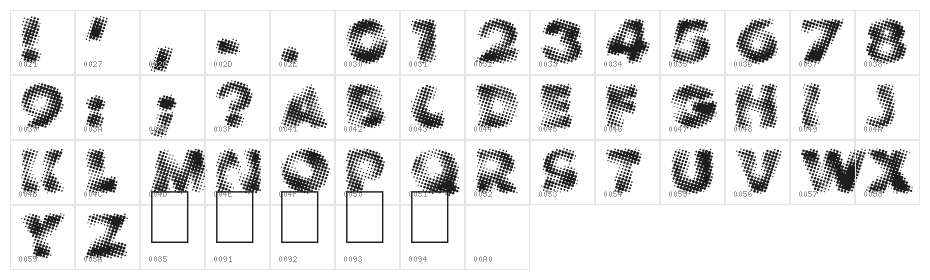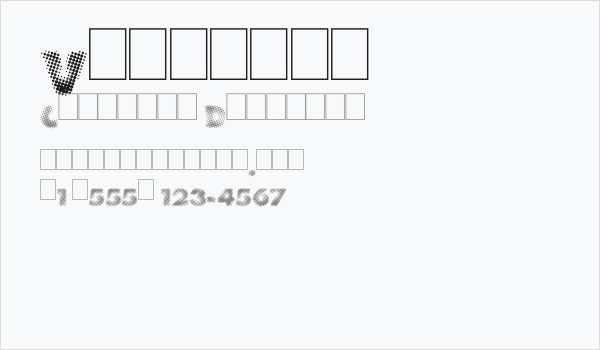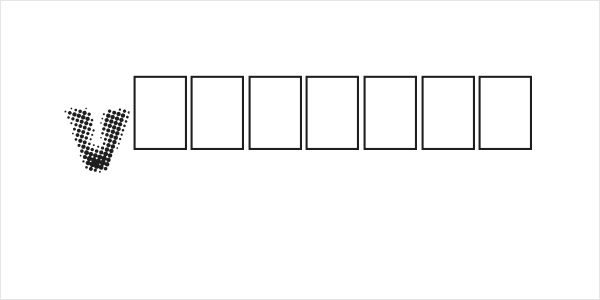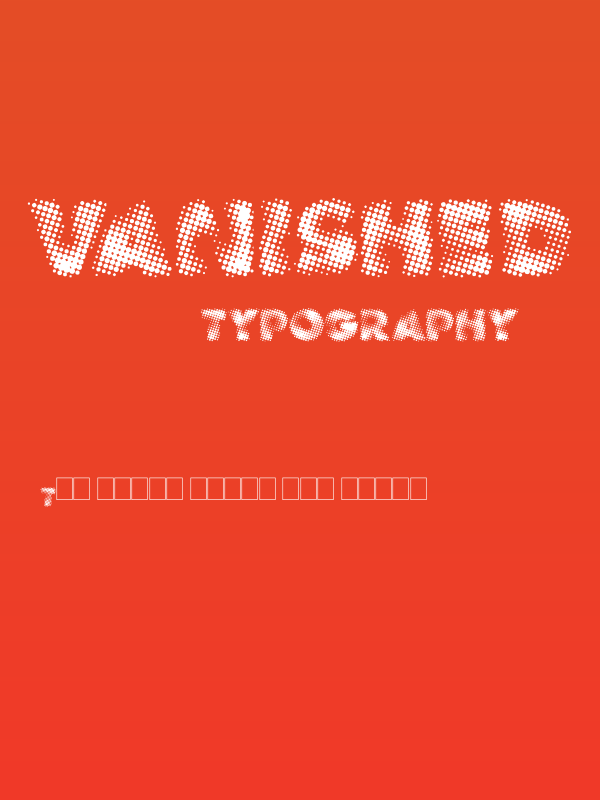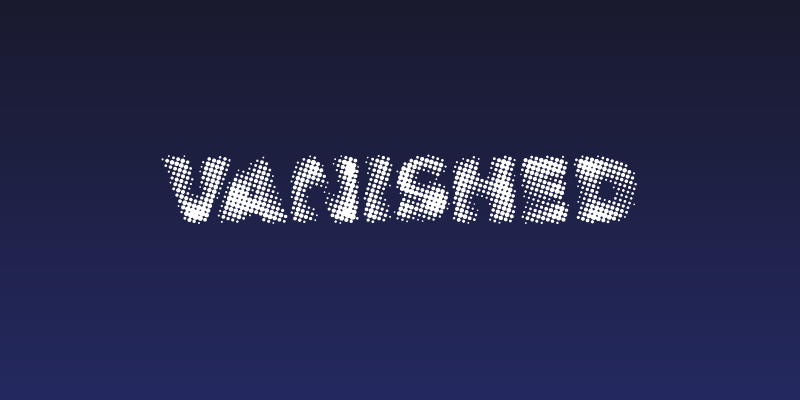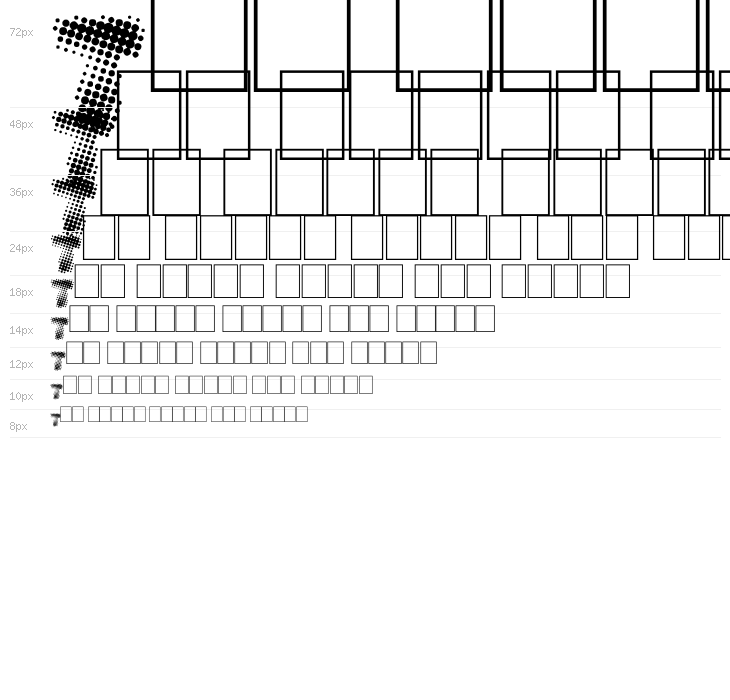
Vanished Font
Vanished Description
This font features a unique halftone pattern, creating a textured, dotted appearance that gives it a dynamic and eye-catching look. The characters are bold and robust, with a playful yet modern aesthetic. The halftone effect adds depth and dimension, making it ideal for designs that require a distinctive and artistic touch. Each letter and number is crafted with precision, ensuring clarity despite the intricate pattern. The font is versatile, suitable for both digital and print media, and can be used to make a statement in various creative projects.
| Overall Style | Modern, Artistic |
| Proposed Projects | Ideal for posters, album covers, branding, and any project needing a bold, artistic touch. |